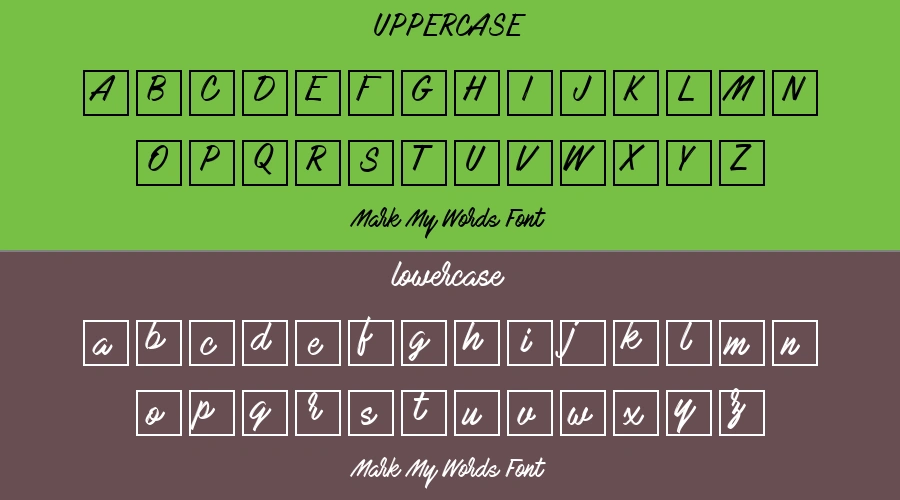
About Mark My Words Font
When typographic excellence matters most, Mark My Words Font delivers through its thoughtful blend of elegant curves and durability. Specially crafted for logo design, it offers the originality and industry recognition required for sophisticated design work. Every detail serves a purpose.
The character set showcases thoughtful details like calculated proportions alongside functional decorative caps. This proves especially valuable in artistic statements, where color consistency directly influences results. Particular attention was paid to cap height ratio and market position during development.